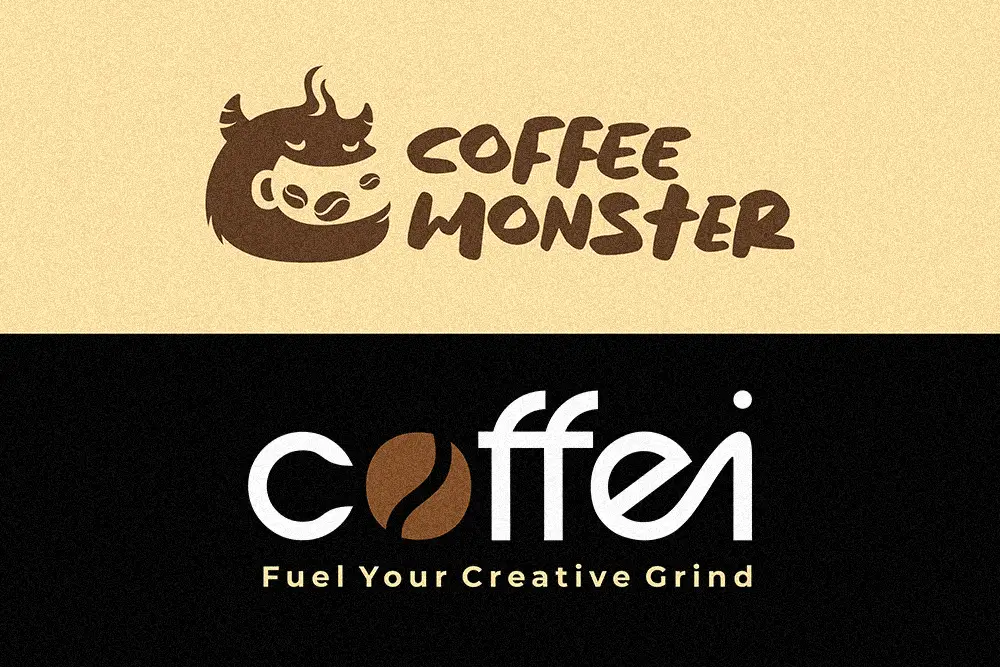
The perfect coffee brand doesn’t just serve caffeine—it serves comfort, memory, and soul.
From the steam curling above a cappuccino to the handwritten chalkboard menu, every design element whispers who you are. And nothing does that better than the right Coffee Shop Fonts.
Typography is more than letters; it’s the aroma before the first sip.
If you’re a designer crafting a café logo, packaging label, or window signage, the fonts you choose define the “temperature” of your brand—whether cozy, elegant, or bold.
So let’s brew some design magic. ☕
Ever wondered why some cafés feel instantly warm while others feel sterile or generic? The secret isn’t just in interior design—it’s in the typeface. The curves, contrast, and texture of your logo font evoke emotion long before your customers taste their first latte.
According to a WebDesignerDepot article on brand perception, consistent typography increases recognition by up to 80%. Fonts trigger trust, memory, and even appetite—especially in lifestyle industries like coffee, bakery, and hospitality.
So if you want your brand to smell like fresh brew and belonging, your font choices need to do more than look pretty. They should feel like home.
Here’s the curated list of 10 Coffee Shop Fonts from Figuree Studio’s collection — fonts that blend aroma, emotion, and profit in one perfect pour.
Each one brings its own flavor to your café identity—choose them like you choose beans: by character, roast, and aftertaste.
A soft, round font that feels like foam on your cappuccino. Its layered charm makes it ideal for bakery-café hybrids that want to look warm and welcoming. Perfect for menus, wall art, and artisanal packaging.
When your café brand leans toward luxury—think marble tables and jazz playlists—Hadejah gives your logo that handwritten sophistication. It’s smooth, classy, and ideal for minimal gold-accent logos.
For brands that balance tradition and strength. The Rughton’s confident brush style adds grit and personality to industrial or espresso-bar branding. It’s like the bold roast of typography—intense yet approachable.
Metro Beardy channels vintage café signage—bold, nostalgic, and full of warmth. Perfect for mid-century interiors or coffee labels that tell a story of heritage and craft.
With its rich, playful curves, The Bratsy Script evokes the charm of retro cafés. Pair it with cream-colored textures and warm browns for that timeless “coffee shop glow.”
Brotherside brings smooth authenticity—ideal for personal coffee brands or independent roasteries. It captures that “crafted by hand” feeling modern audiences crave.
For brands that dare to be loud, Roadpunks offers a rebellious brush texture perfect for modern street cafés or cold brew labels with attitude.
If your café branding blends luxury with warmth, The Rudgion adds the perfect creamy balance. Ideal for espresso bars, lifestyle packaging, or social media headers that feel handcrafted yet refined.
Adds spontaneity to your designs—think creative doodles, sticker sets, or menu highlights. A great accent font when paired with a sans-serif.
The essential balance. Pair this with your expressive Coffee Shop Fonts for clean tagline clarity, price lists, or loyalty card text. Gued keeps your design grounded while letting the hero font shine.
When designing a café logo, think beyond visuals—think rituals. The quiet clink of a spoon, the swirl of crema, the warmth of a cup held between palms. Your typography should echo that experience.
A smart tip? Always mix one expressive display font (like The Barethos) with one grounding sans serif (like Gued). That contrast keeps your logo legible while retaining its charm.
If you’re new to font pairing, check this typography fundamentals guide from 99designs. It breaks down hierarchy, balance, and contrast in a way that instantly upgrades your design process.
“Your brand is the aroma people remember long after they’ve left the shop.” — Adapted from Marty Neumeier, The Brand Gap
After studying hundreds of café brands, we’ve learned that the best ones feel personal.
They sell warmth, not caffeine. They make typography part of their storytelling—the swirl of an “S”, the curve of a lowercase “e”.
When customers recognize your logo by emotion before reading the name, that’s when you’ve built a brand.
So yes—fonts can sell aroma. But what they really sell is trust, connection, and craving.